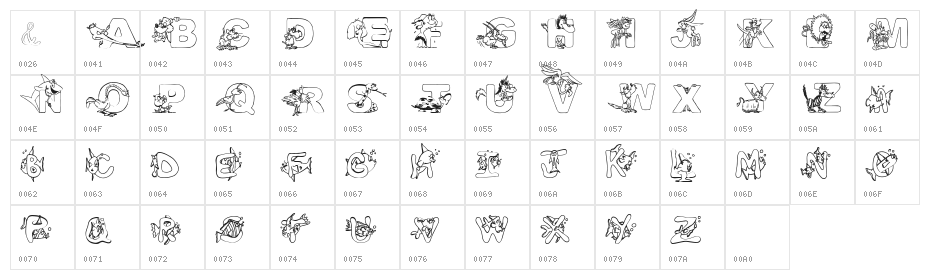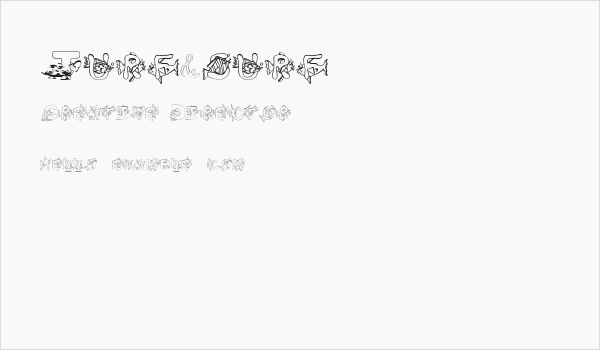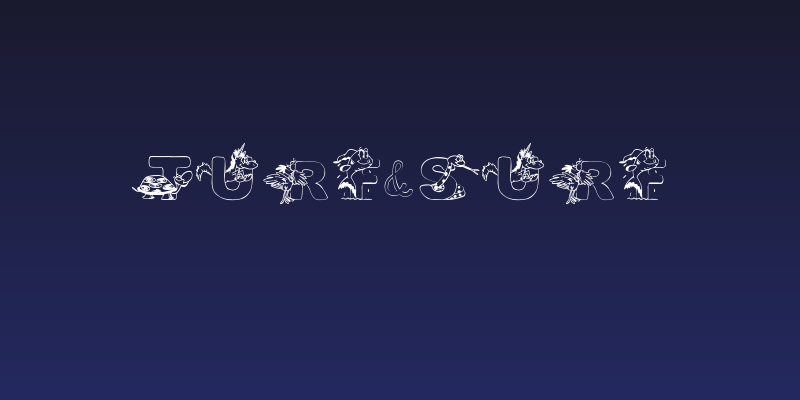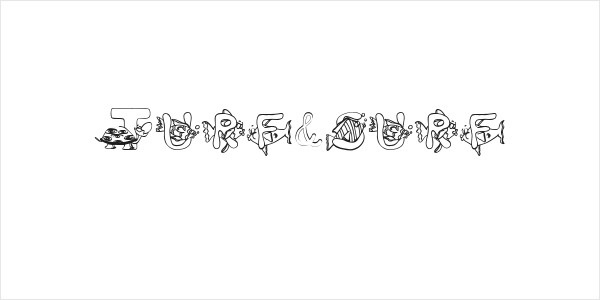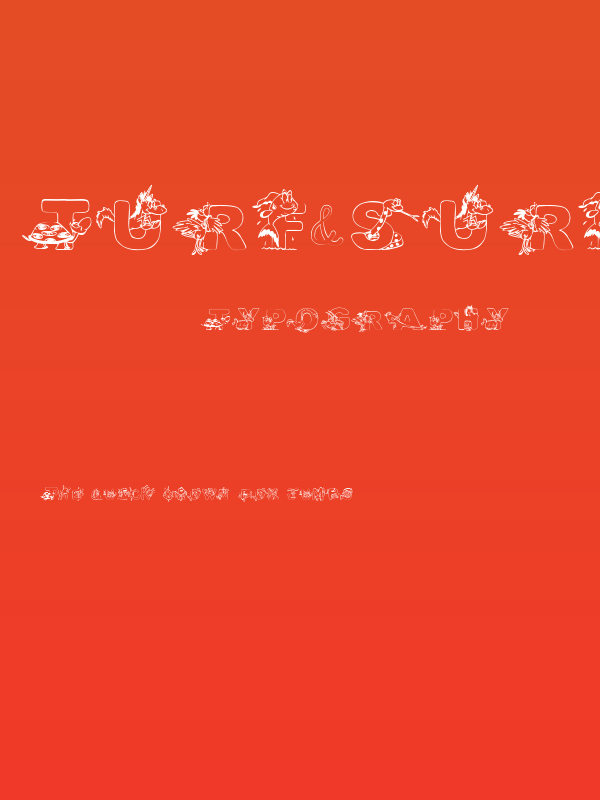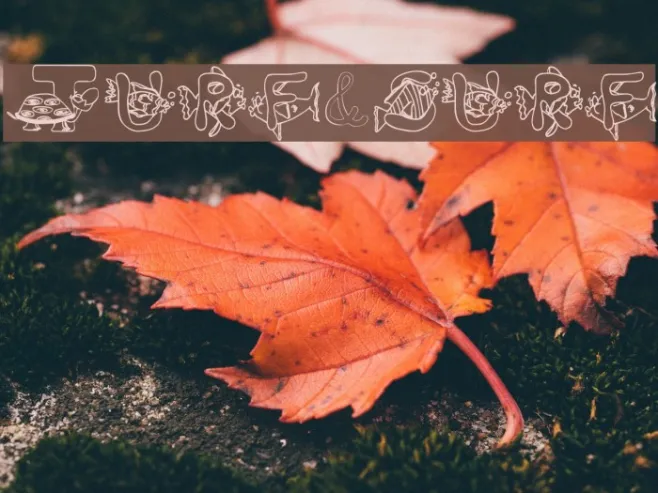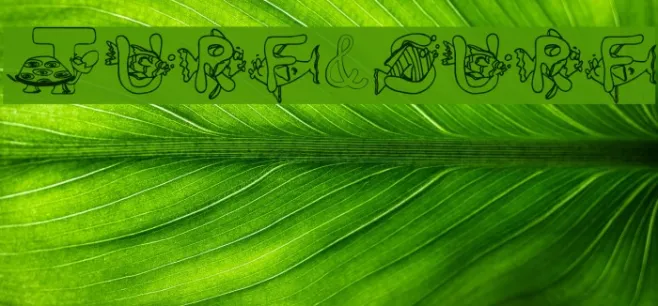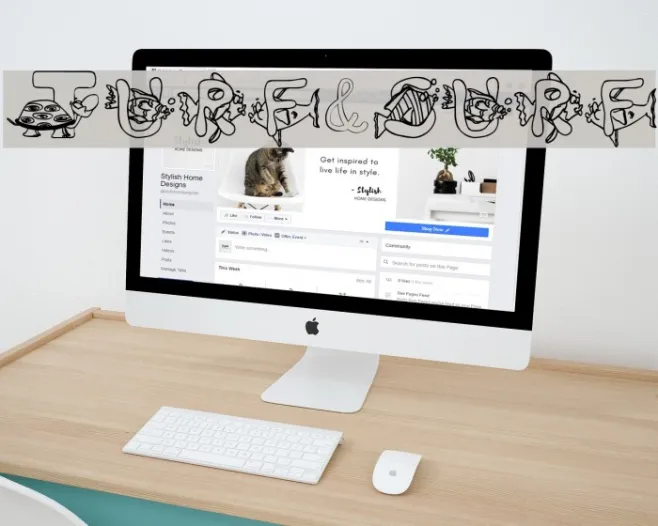
Turf&surf Font
Turf&surf Description
This playful and whimsical font features characters integrated with various cartoonish elements, giving each letter a unique personality. The uppercase and lowercase letters are adorned with illustrations of animals, plants, and other imaginative designs, creating a lively and engaging visual experience. The font is highly decorative, with each character offering a distinct scene or story, making it ideal for creative projects that require a touch of fun and imagination. The intricate details within each letter make it a standout choice for projects that aim to capture attention and convey a sense of joy and creativity.
| Proposed Projects | Ideal for children's books, playful branding, creative posters, and event invitations. |